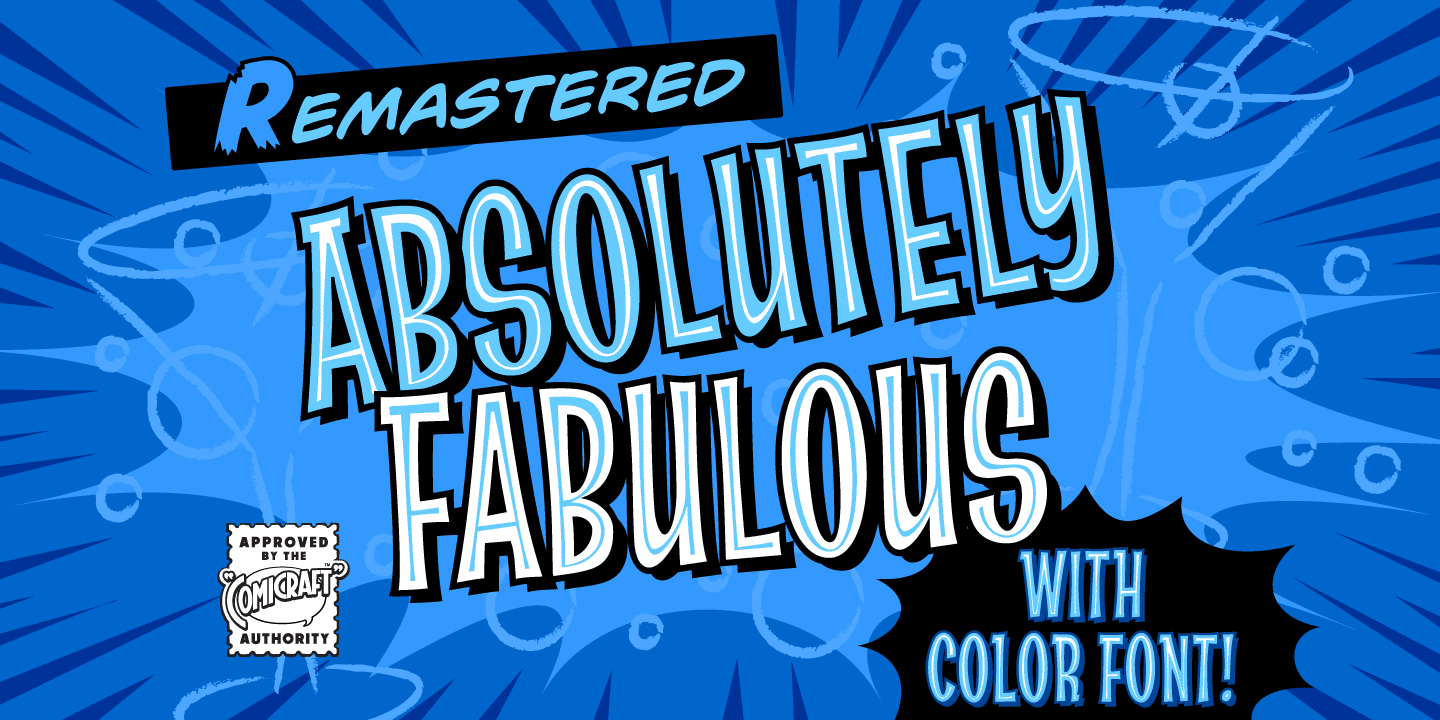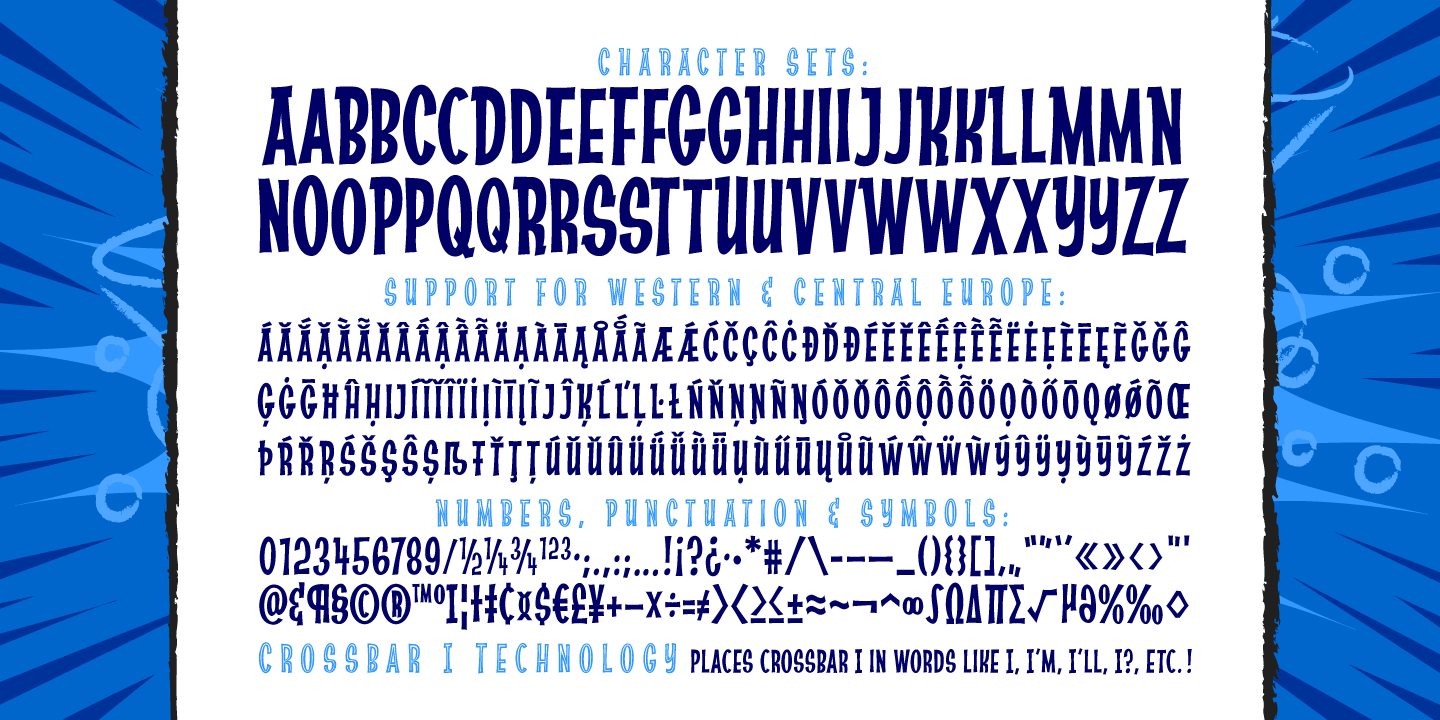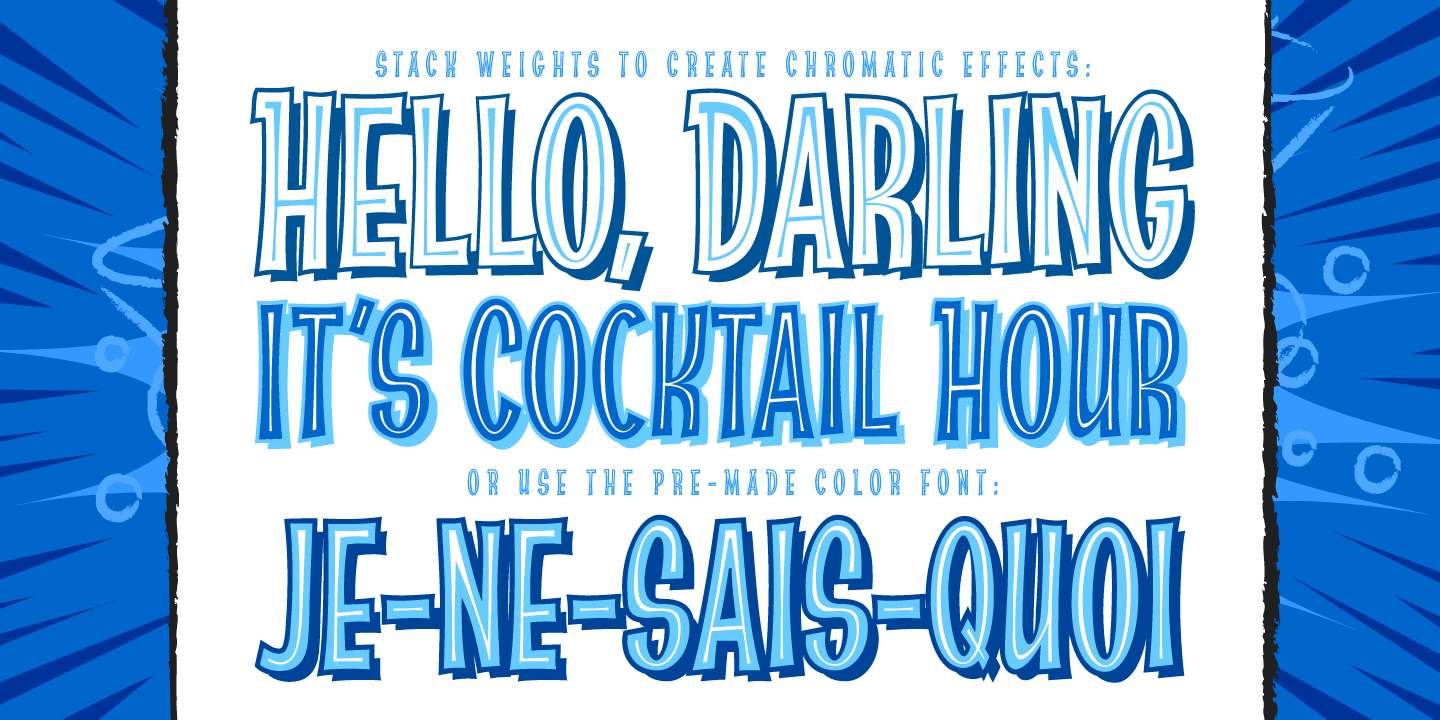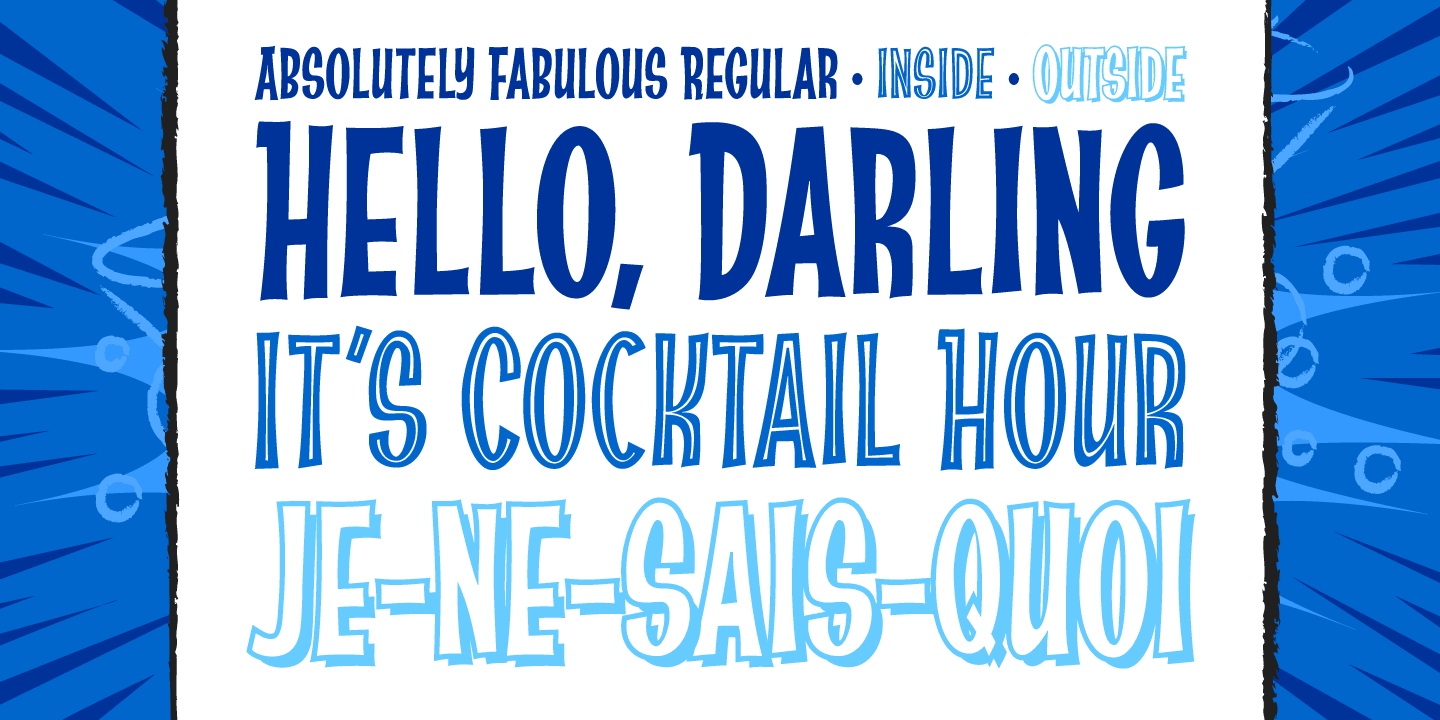
Absolutely Fabulous
Font Family by Comicraft Fonts
These Charming letterforms, filled to the brim with the pop sensibility of late sixties je-ne-sais-quoi and the high camp detachment of the early seventies, scream out 'I am THIN and GORGEOUS!'
Daring, Sexy, Witty and Subversive, Absolutely Fabulous swings from the pages of Marvel's UNION JACK to provide you with all the handheld wobble you'll need for thrilling titles, taut climaxes and logos that tingle with sartorial sophistication. If you're not thinking of miniskirts, black leather and concealed transmitters in bowler hats when you install this font, you're just not on the right wavelength, baby.